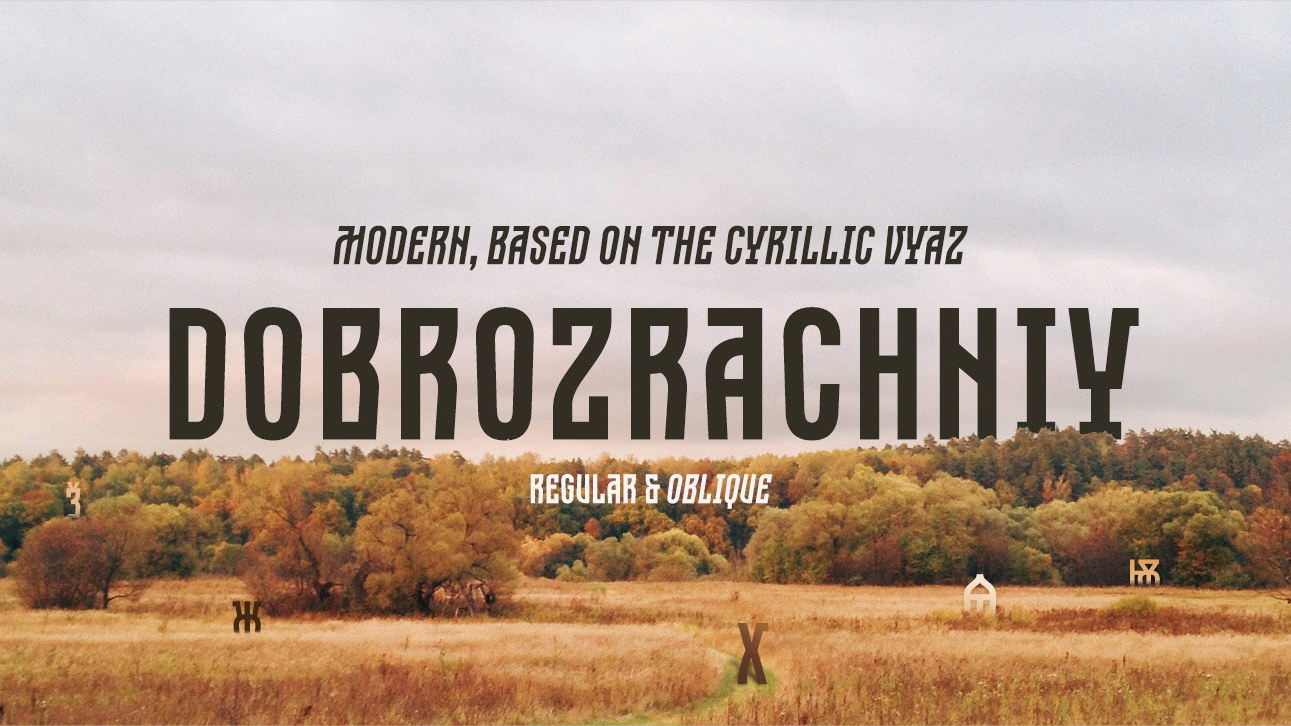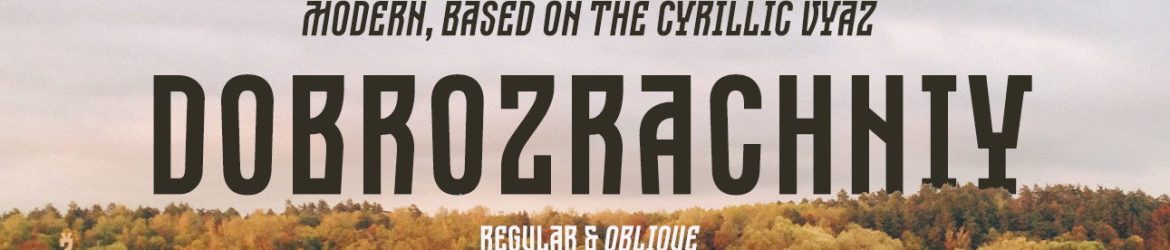
Download Dobrozrachniy font, an accidental grotesque with narrow proportions and low contrast, created on the basis of pre-Petrine Cyrillic and stylized Art Nouveau.